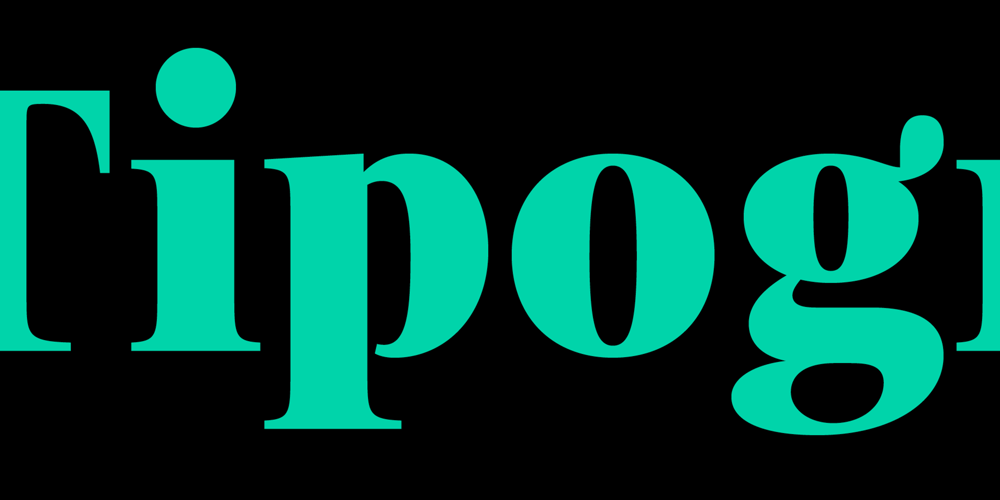
FS Neruda
FS Neruda font
FS Neruda Font Family was designed by Pedro Arilla and published by Fontsmith. FS Neruda contains 10 styles and family package options. A literary fontFS Neruda takes its name from Chilean poet Pablo Neruda, described as “the greatest poet of the 20th century in any language”. As such, it’s a font that references the very best literary typeface traditions. Smart, sharp and classical, FS Neruda bridges the gap between the classical and the offbeat. This font started life in the world of newspapers and books and is the perfect storytelling typeface for savvy, inquiring readers whether in printed journals, hard news, short online missives or poetry.Idiosyncratic precisionFS Neruda is clear and legible in body text, while also being a space-saver fitting in more characters on each line than the typefaces that inspired it. In larger sizes it becomes a different beast – livelier, quirkier, but no less sharp. This is a truly classic typeface designed with long text setting in mind, thanks to its large x-heights, and short ascenders and descenders. FS Neruda mixes suave, sharp confidence with a sense of fragility and quirkiness. It’s knowledgeable, informative and idiosyncratic; one for readers and enquiring minds.Subtle weight modificationsThe construction and details of the letterforms differ across each of the five weights, with each cut separately to evoke different flavours: Thin is typewriter-like, Light is classy, Regular is canonical, Bold is robust, Black is magazine-esque. FS Neruda also boasts a radiant italic companion, a wide set of small caps, lower and uppercase ligatures, case punctuation and spacing, four sets of figures, and some ageless typographic symbols such as manicules, fleurons and teardrop crosses.Suggestive simplicity“The key to success in the current type design landscape is to design a typeface which looks conventional at text sizes but has a few small, suggestive touches visible at bigger sizes that make it distinct,” says designer Pedro Arilla. “Another thing we wanted to achieve with this typeface is simplicity.” FS Neruda is available in ten carefully crafted styles: it’s designed to work perfectly at text sizes, but still glows as a display typeface.